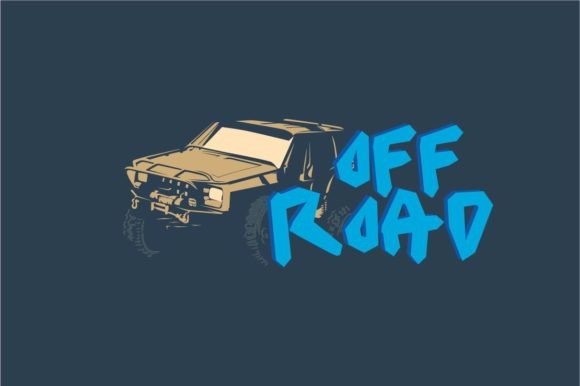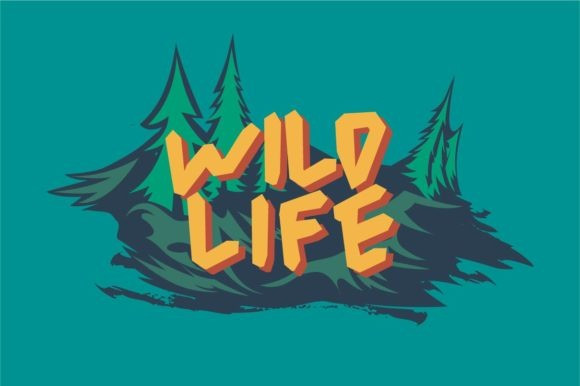
Wild Life Font
Wild Life Display Font is a modern and beautiful handwritten font with an incredibly adventurous feel. Use this gorgeous and unique display font to bring any DIY project to life!